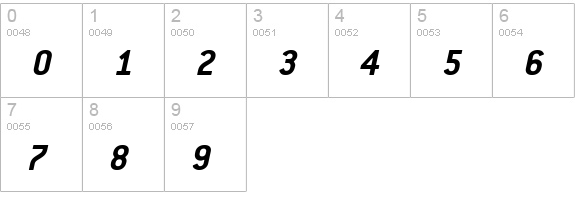
PFPremier Bold Italic is a strong, high-contrast, italic variant in the PFPremier typeface family \xE2\x80\x94 well suited to headlines, attention-grabbing titles, and strong calls-to-action.